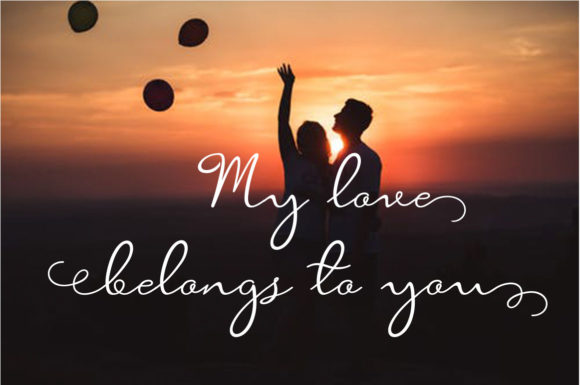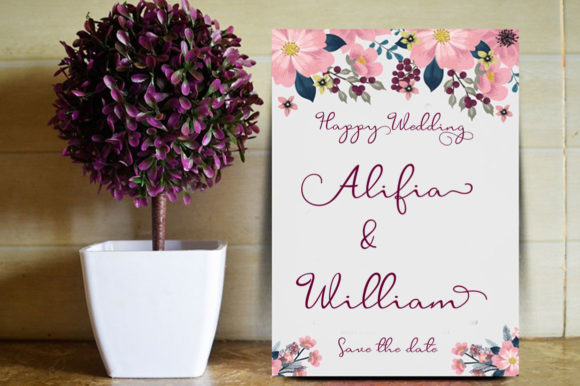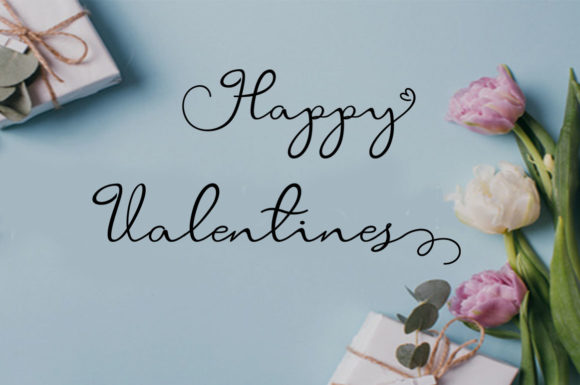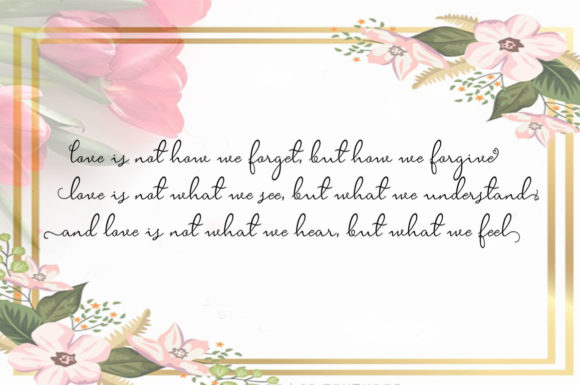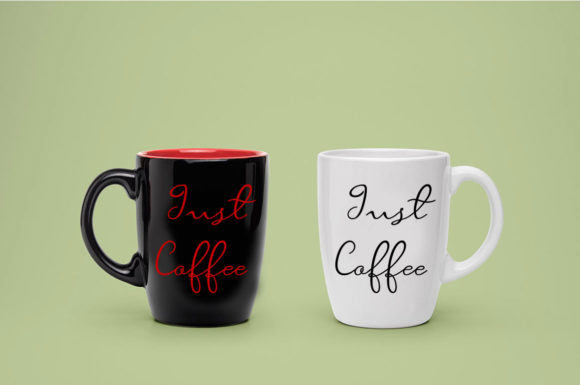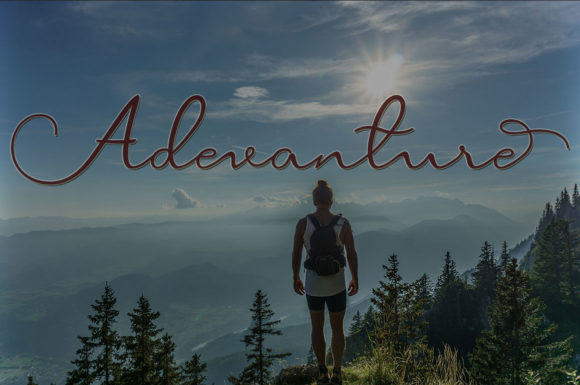
Introducing Almadila Font: Elevate Your Design with Classic Elegance
In the world of typography, few fonts manage to strike a balance between classic sophistication and modern flair. Almadila Font is one such gem that brings its unique style to the table, making it an excellent choice for designers and crafters looking to add a touch of elegance to their projects. Inspired by the timeless beauty of classic typography, Almadila offers a fresh, handwritten approach that’s versatile enough to shine in various applications.
The Essence of Almadila Font
Almadila is more than just a font; it’s a statement piece. Its design is rooted in the traditions of classic typography, yet it boasts a distinct character that sets it apart from more conventional typefaces. This fantastic handwritten font is crafted to bring a sense of warmth and personality to any design project. Whether you’re working on a website, a print project, or even a video, Almadila promises to add a layer of sophistication and charm.
One of the standout features of Almadila Font is its incredible versatility. It’s best suited for headlines of all sizes, where its elegant strokes and classic undertones can truly shine. But Almadila doesn’t just stop at headlines; it’s also perfectly capable of handling blocks of text with both maximum and minimum variations. This flexibility makes it an invaluable asset for designers who need a font that can adapt to different design requirements.
Applications of Almadila Font
The applications of Almadila Font are vast and varied. Here are a few areas where it truly excels:
- Web Design: For website headers, titles, and even body text, Almadila brings a level of sophistication that’s hard to match. Its readability and aesthetic appeal make it perfect for digital platforms.
- Print Media: From brochures and posters to business cards and magazines, Almadila’s classic elegance translates beautifully to print, ensuring your project stands out.
- Motion Graphics: For video content, presentations, or any moving images, Almadila’s unique style adds a captivating element that engages viewers.
- Crafting and DIY Projects: For crafters and DIY enthusiasts, Almadila can add a professional touch to handmade cards, journals, and other creative projects.
Why Choose Almadila Font?
Choosing Almadila Font for your design project comes with numerous benefits:
- Unique Style: It offers a distinctive look that can set your project apart from others.
- High Readability: Despite its elegant nature, Almadila maintains high readability, making it suitable for both headings and body text.
- Flexibility: It can be used across various mediums, from digital to print, without losing its charm.
Almadila Font is a remarkable addition to any designer’s toolkit. Its blend of classic inspiration and unique style makes it an excellent choice for a wide range of projects. Whether you’re a professional designer or a crafting enthusiast, Almadila offers the perfect combination of elegance, versatility, and charm. By incorporating Almadila into your design projects, you’re not just choosing a font; you’re elevating your work to new heights of sophistication and appeal.